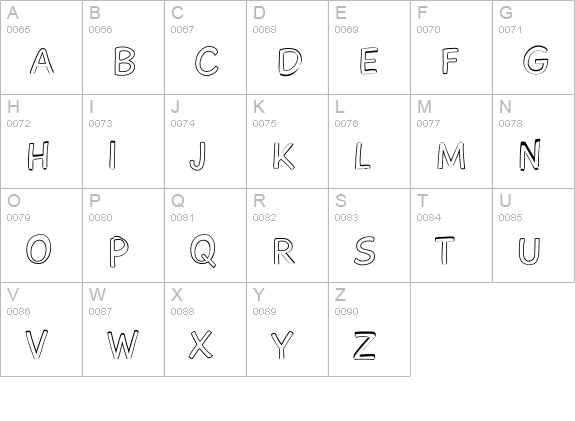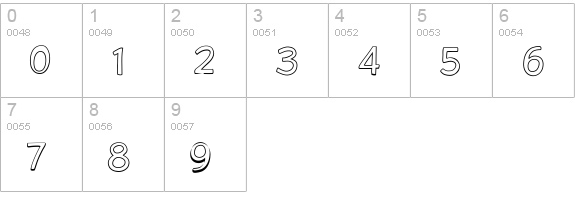
PlaytimeWithHotToddies3D Font Details
PlaytimeWithHotToddies3D font is a playful and whimsical typeface that will bring a sense of fun and creativity to your design projects. With its three-dimensional effect, this font adds depth and character to any text it is applied to. Whether you're working on a children's book, poster, or greeting card, PlaytimeWithHotToddies3D font is sure to grab attention and make your message stand out. The best part? PlaytimeWithHotToddies3D font is completely free to download at FontsMarket.com! You can easily access this charming font and incorporate it into your projects without any cost. Don't miss out on the opportunity to add a touch of joy and playfulness to your designs with PlaytimeWithHotToddies3D font. Download it today and let your creativity shine!